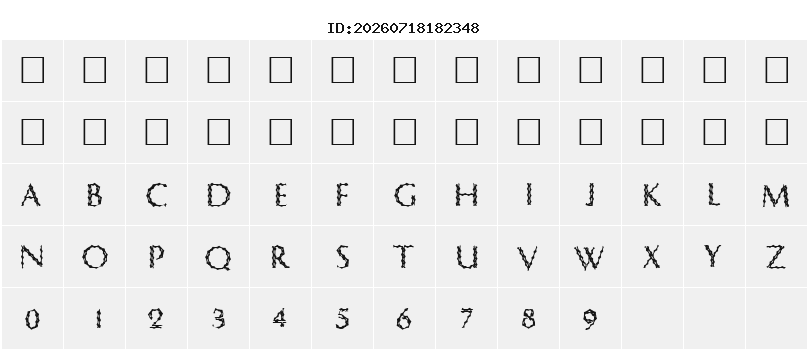
CrypTiX.ttf
• Font Name: CrypTiX
• Designer: TheBlueJoker
About CrypTiX.ttf
CrypTiX.ttf is a modern, elegant sans-serif font designed for ultimate readability and visual harmony. Perfect for branding, headlines, web design, and print materials.